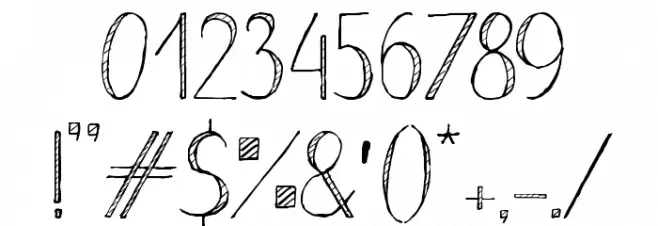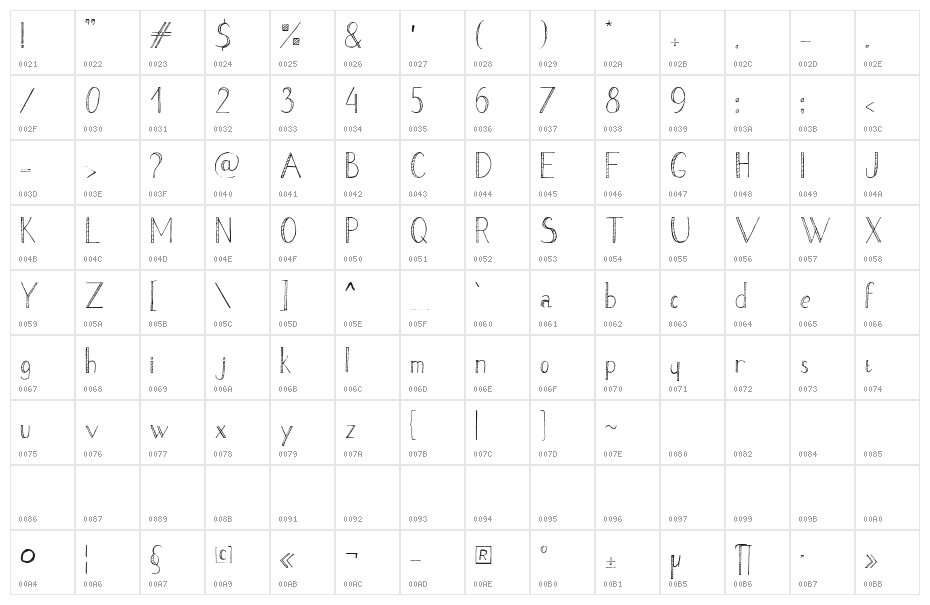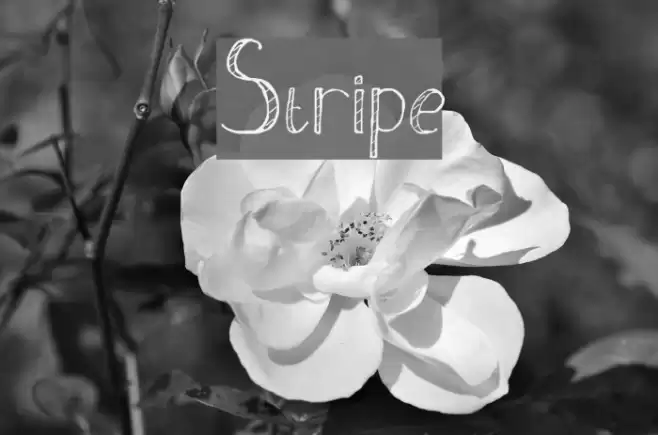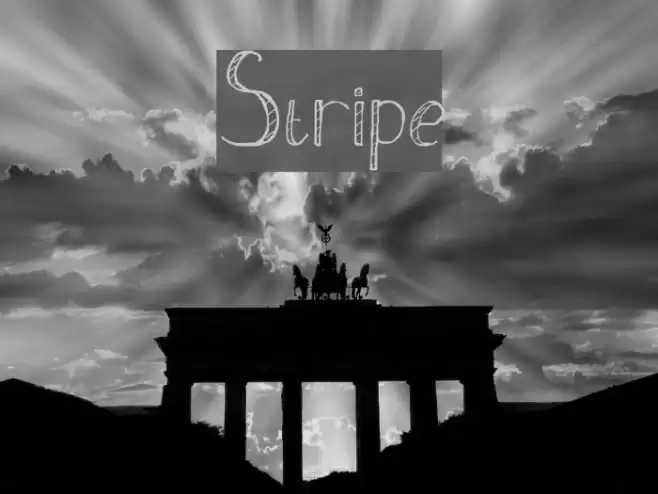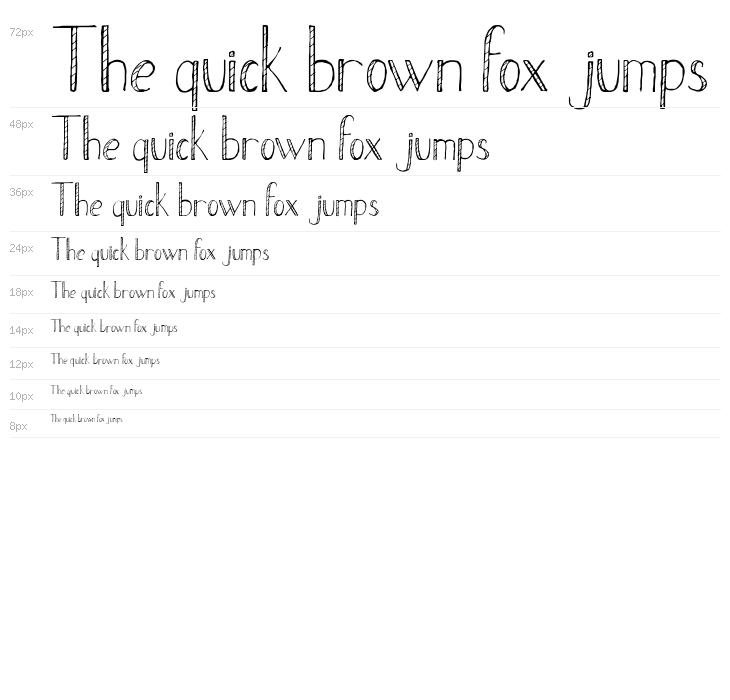
Stripe Font
Stripe Description
This font features a playful and hand-drawn style, characterized by its sketch-like appearance. Each letter is outlined with a consistent stroke, filled with diagonal lines that give it a textured, striped effect. The uppercase and lowercase letters maintain a whimsical and informal aesthetic, making it ideal for creative and casual designs. The numerals and special characters follow the same artistic pattern, ensuring a cohesive look across all text elements. The font's unique style is both eye-catching and approachable, suitable for projects that require a touch of personality and creativity.
| Overall Style | Playful, Hand-drawn |
| Proposed Projects | Ideal for children's books, greeting cards, playful branding, and creative posters. |